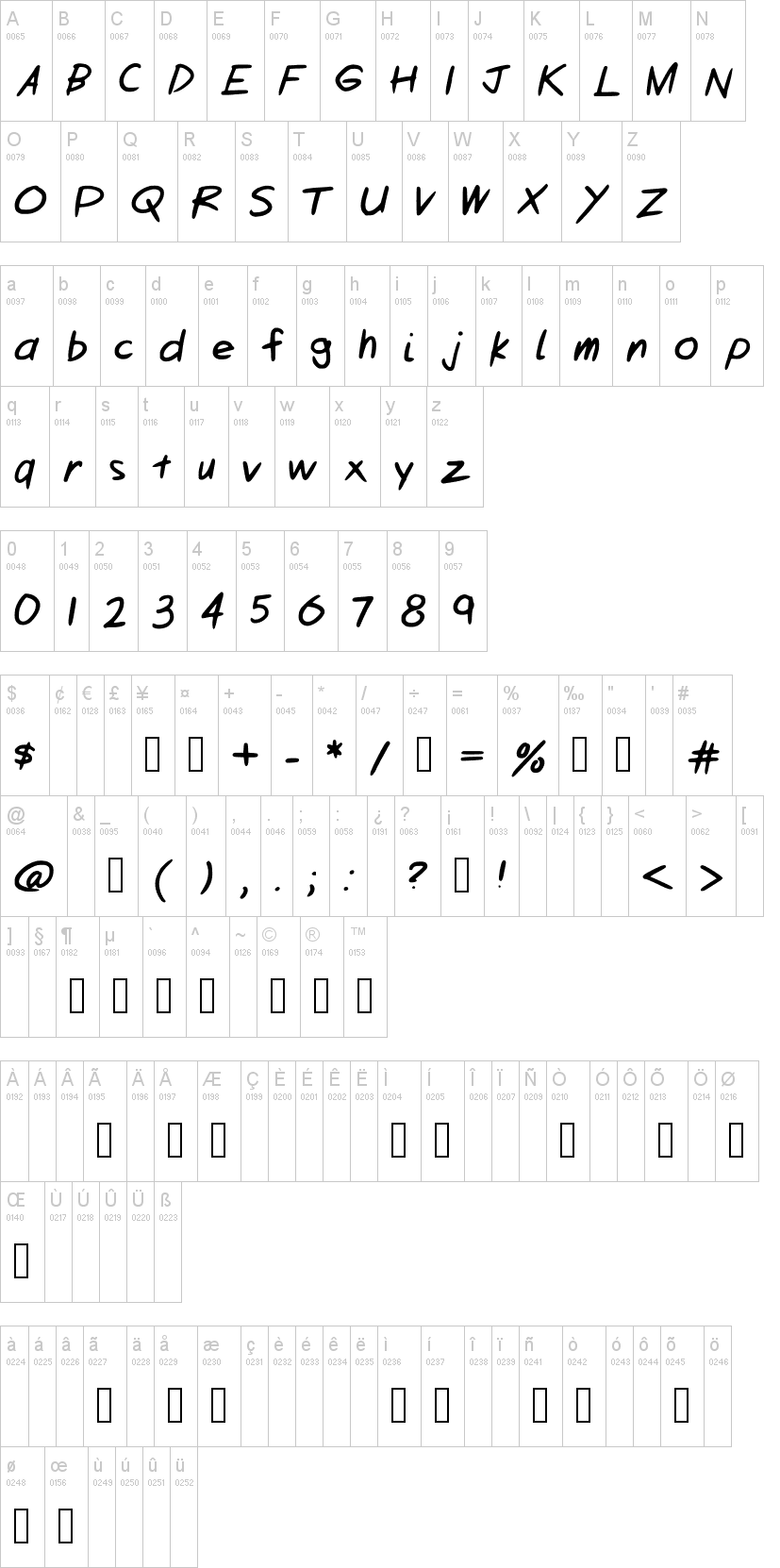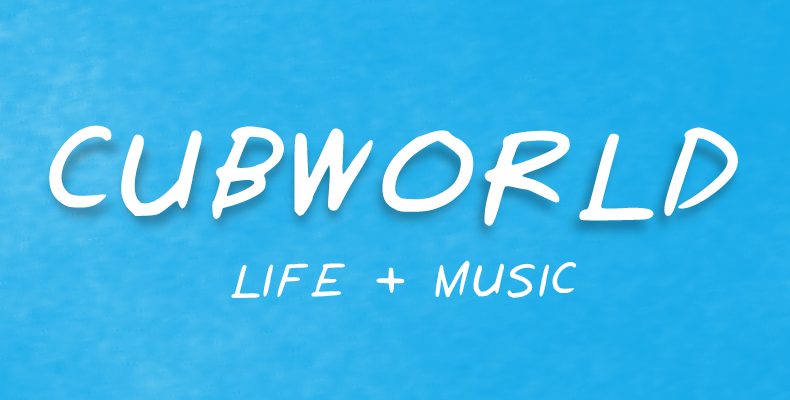
Note of the authorEnjoy this totally free font. Use it for whatever you'd like. It's my handwriting and the first font I've ever created :). I named this font 'Cubworld' after my music name. www.cubworldmusic.com